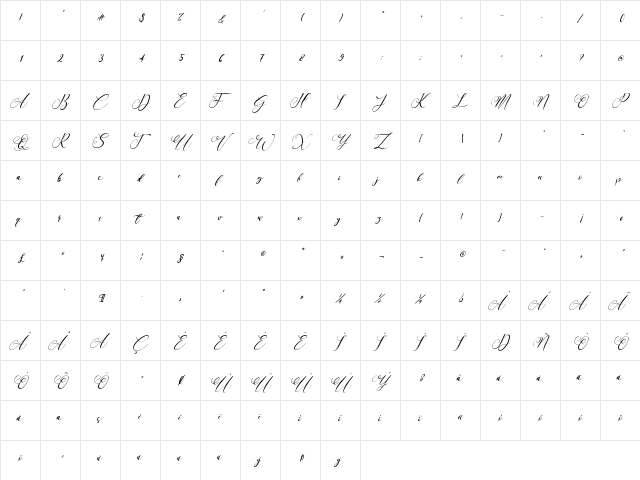
Simply Sugary Italic Regular
Design Context for Simply Sugary Italic Typeface
Simply Sugary Italic is a composed and adaptable typeface that performs quietly and consistently across a wide range of design contexts. Its italic angle brings a sense of urgency and motion to the letterforms.
Pro Tip: Try Simply Sugary Italic for annotation and caption copy alongside an upright companion — the contrast in angle creates a dynamic but ordered typographic system.